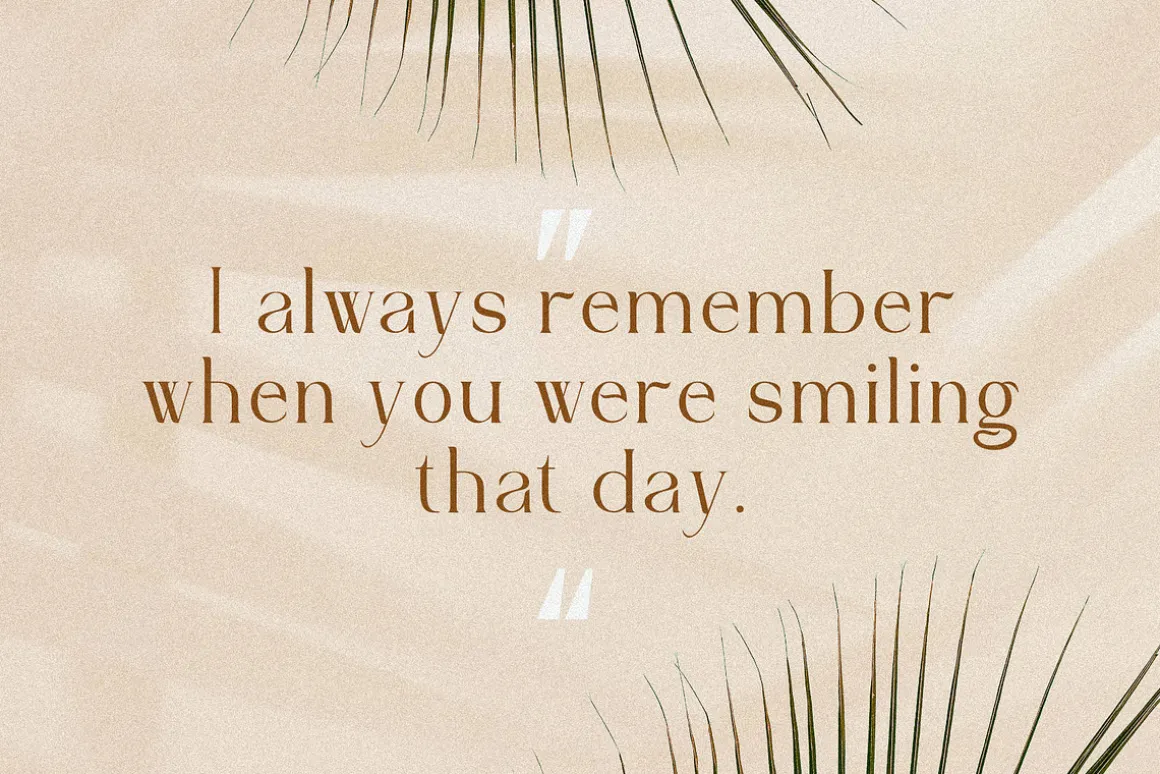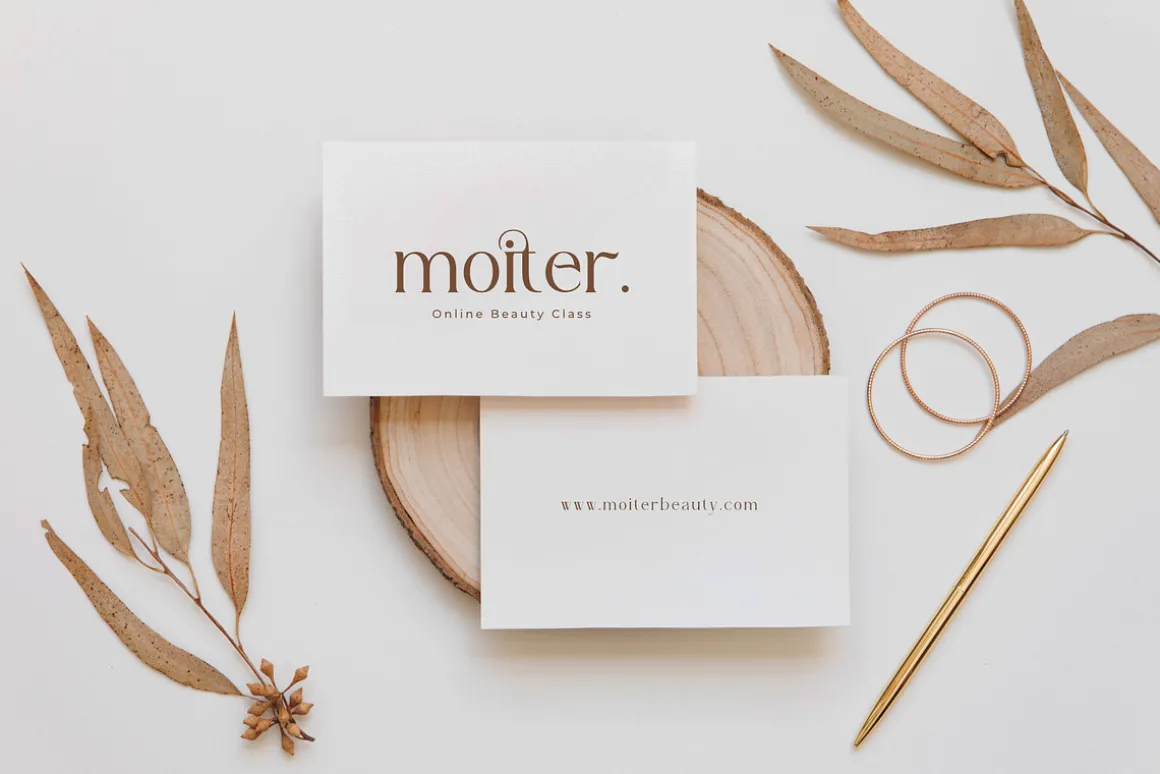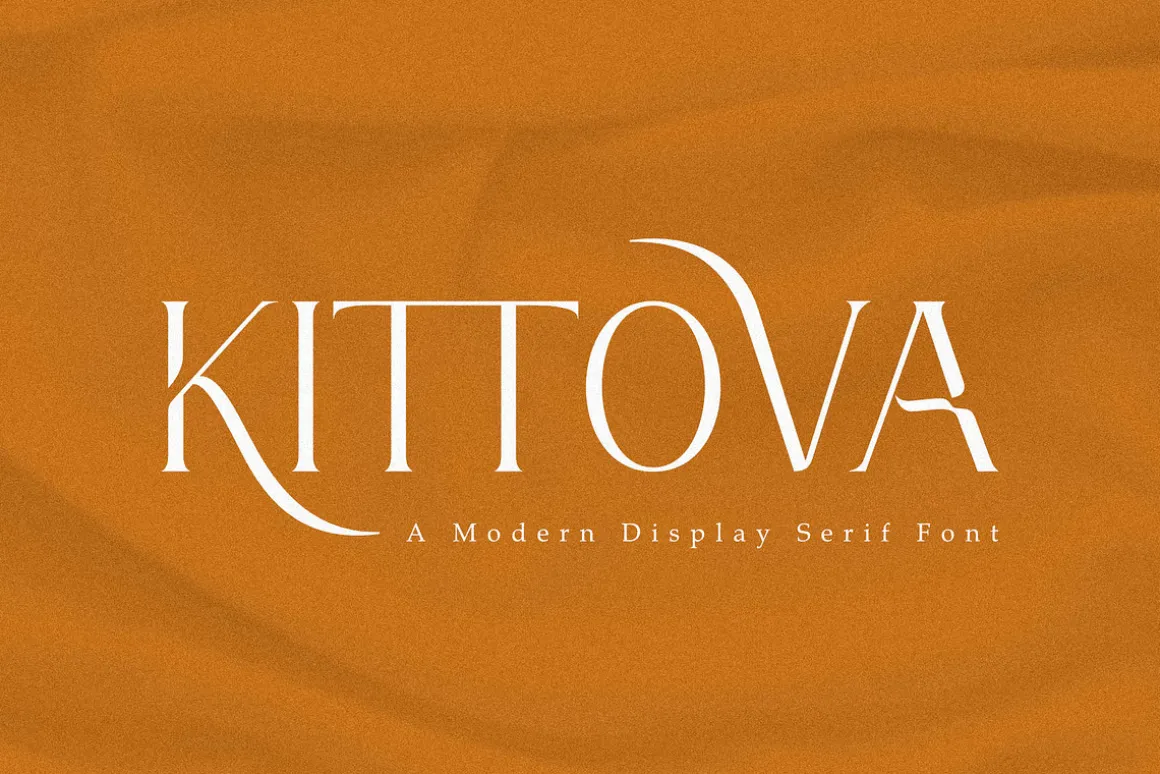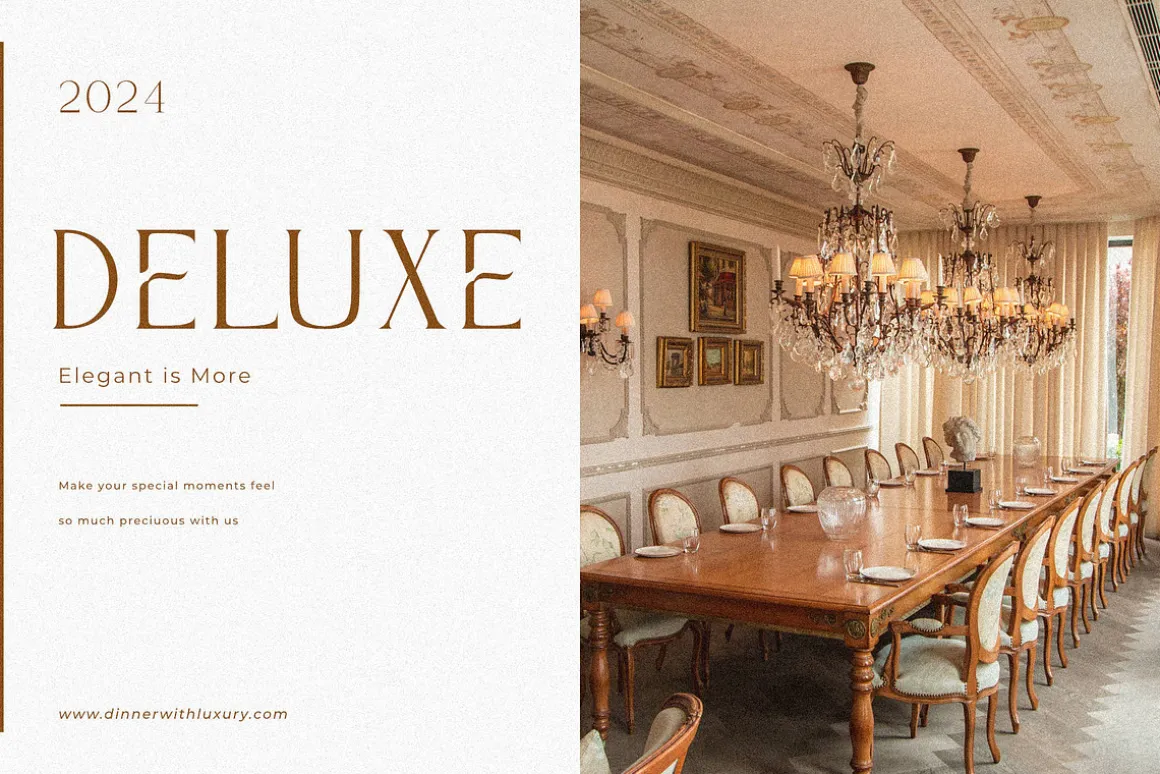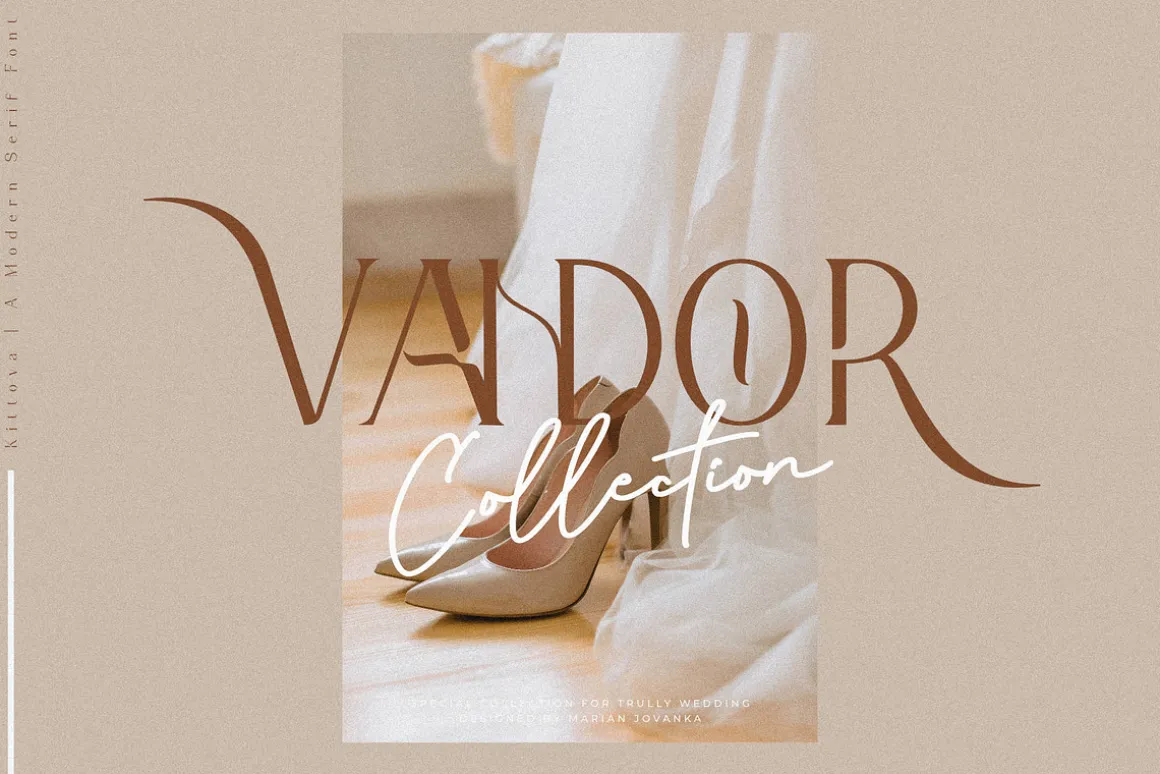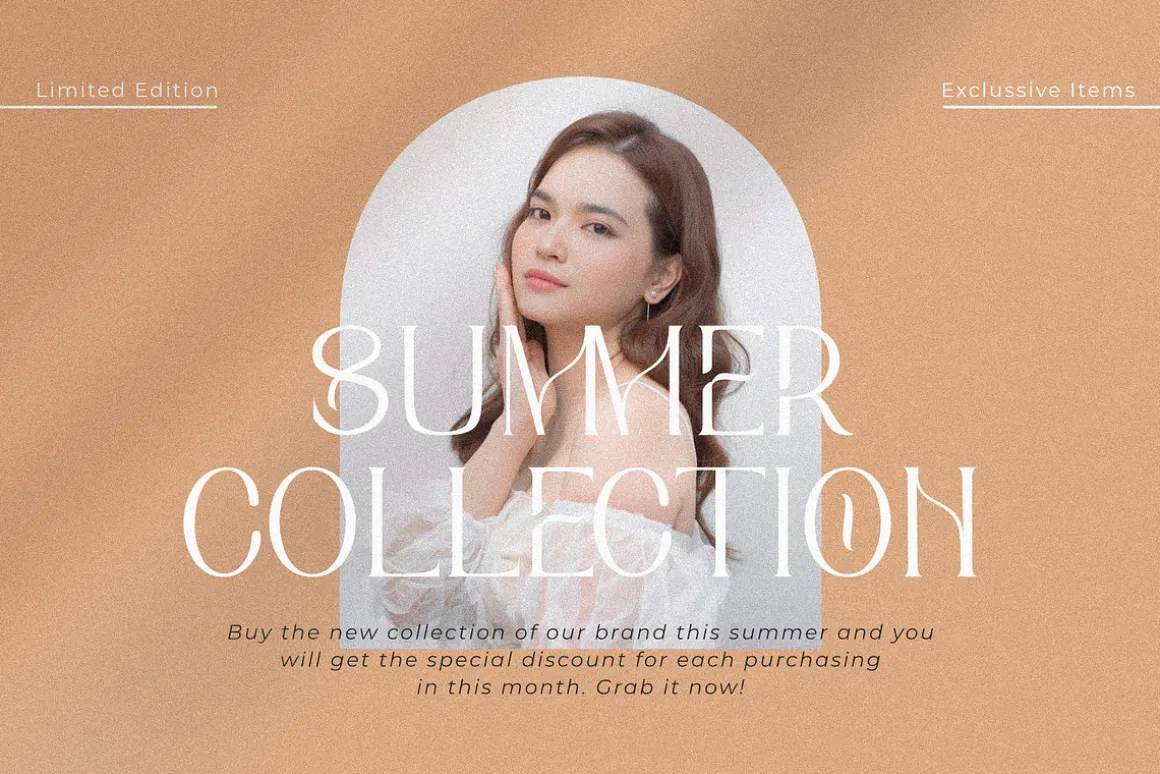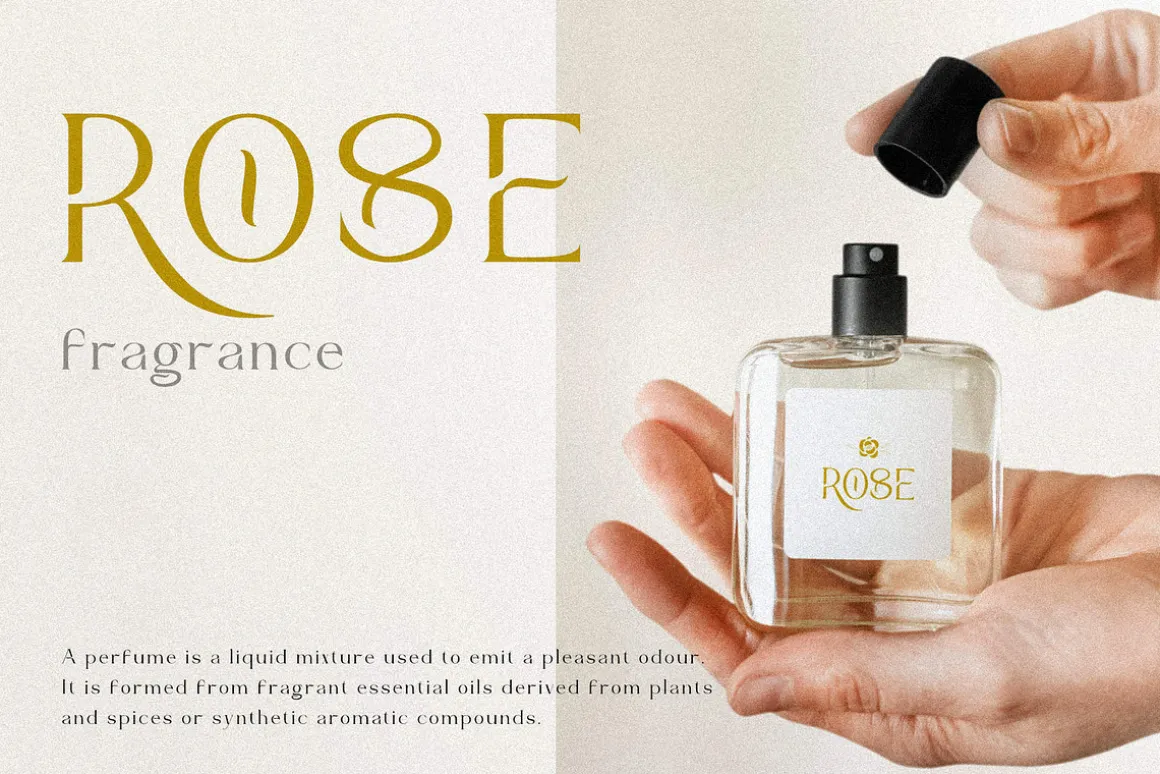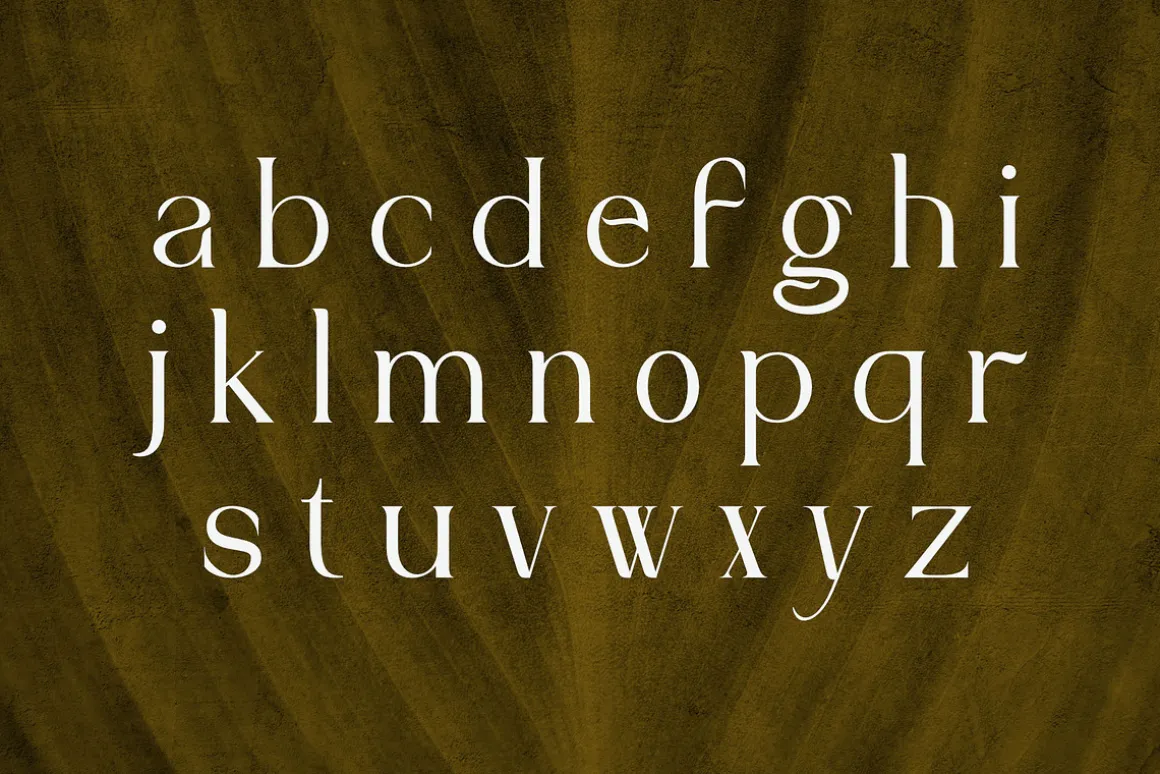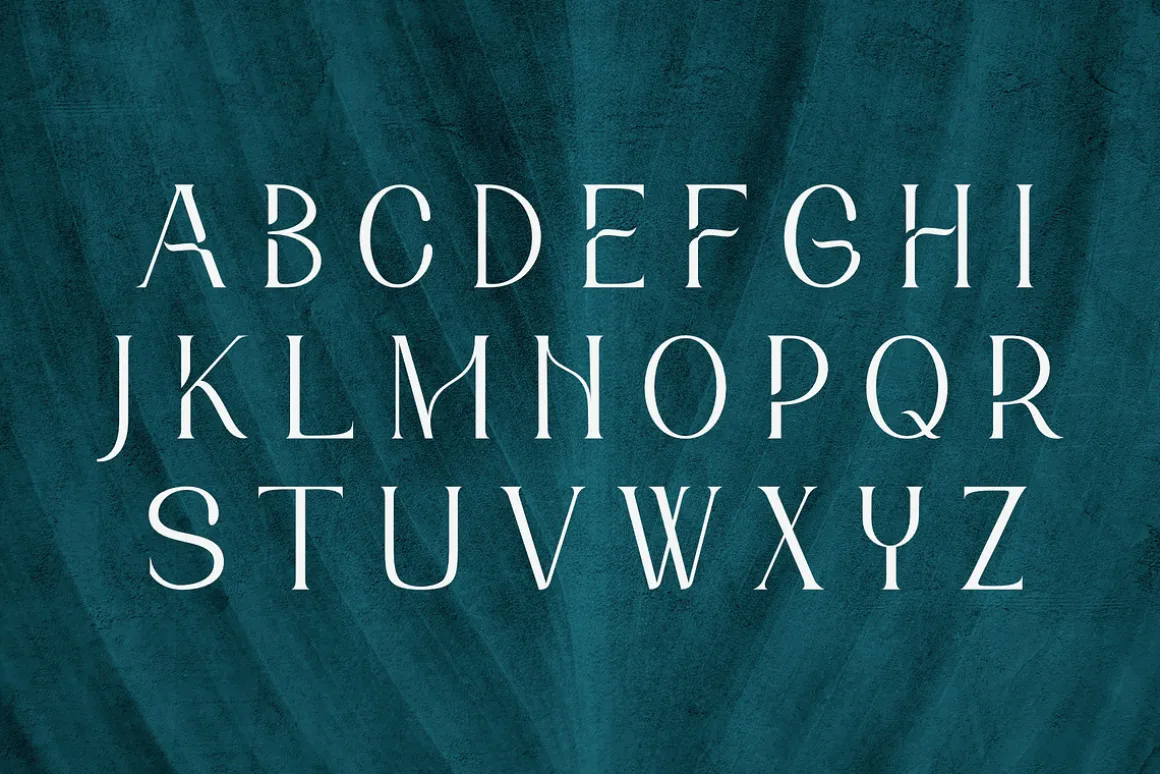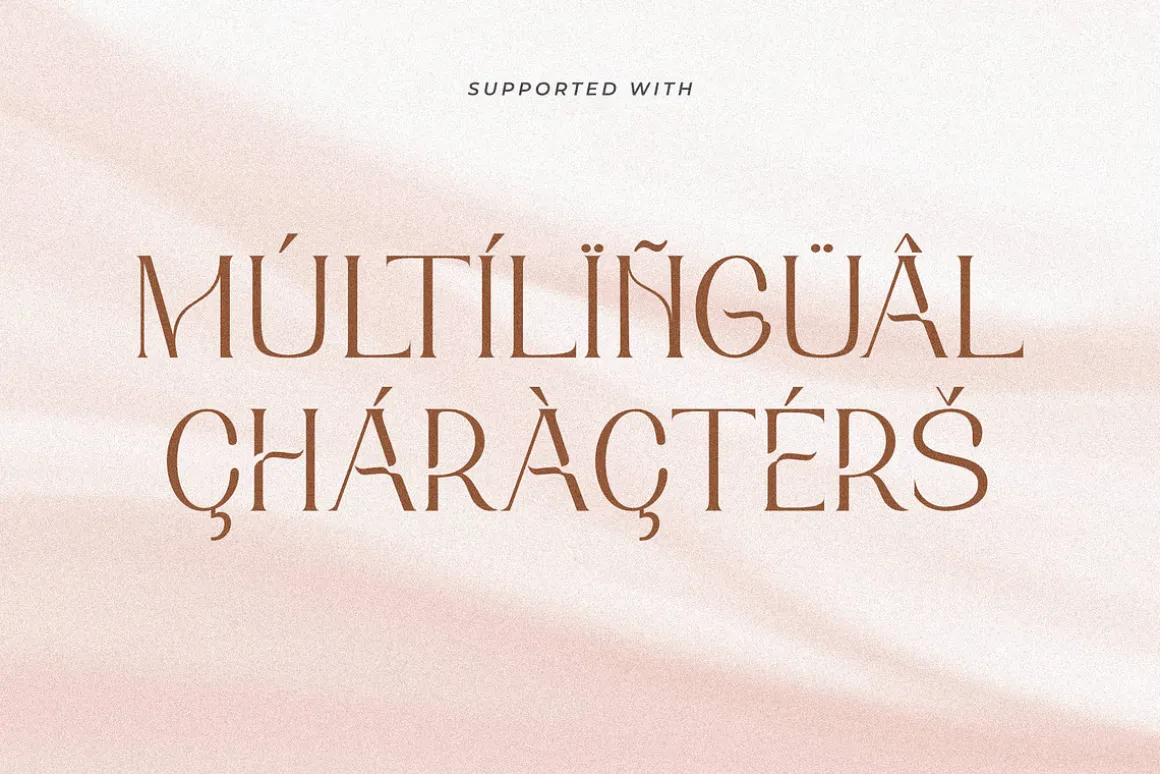
Kittova is a modern display serif font that will make your design project more impressive and attractive. This font features beautiful and elegant ligatures and alternates, that will give your typography more personality and flair.Whether you need to create logos, posters, flyers, banners, or social media graphics, Kittova will add a touch of class and elegance to your designs. Download Kittova today and enjoy this modern display serif font!
- Alternate and Ligatures